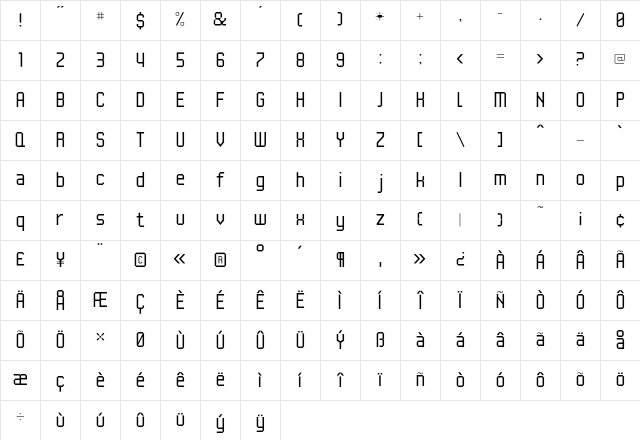
UNDA AngleFine Free Font
UNDA AngleFine
Style: AngleFine
Design Context for UNDA
UNDA is a composed and adaptable typeface that performs quietly and consistently across a wide range of design contexts.